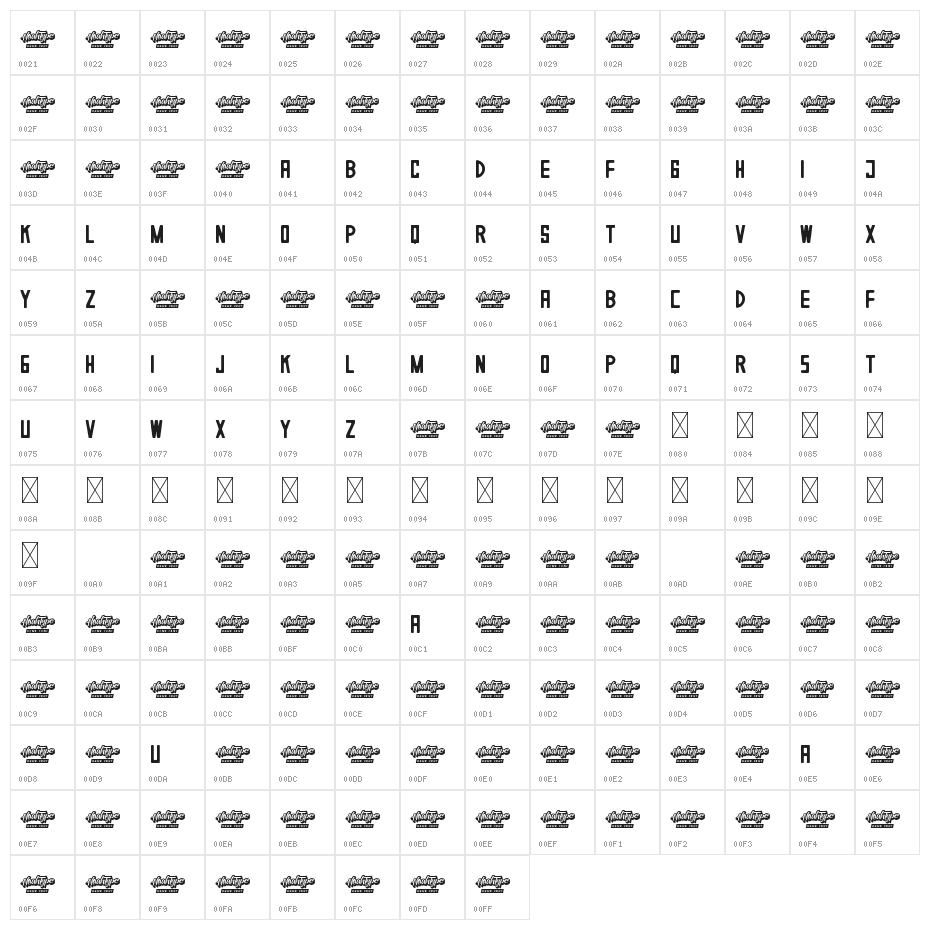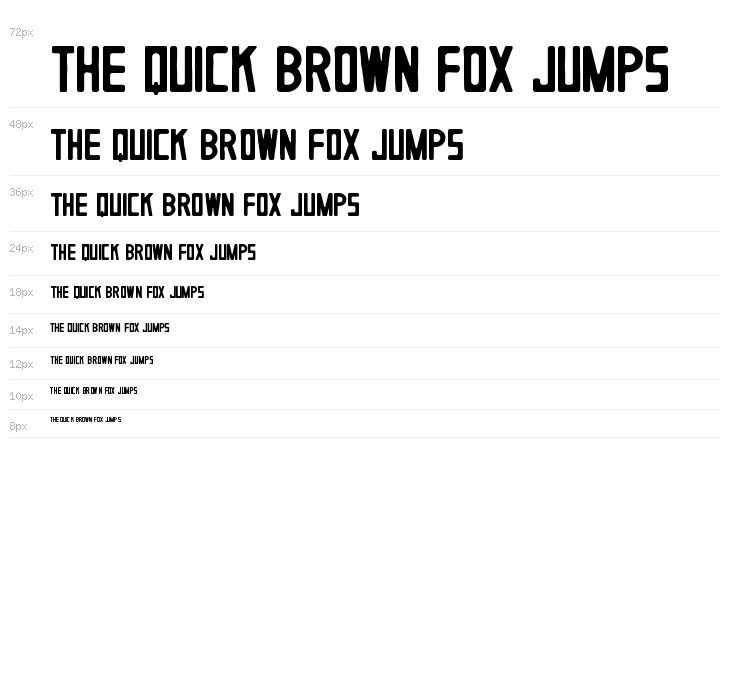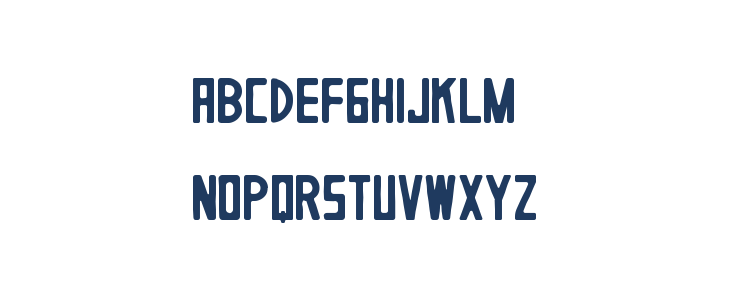
Inkstamp Demo Font
Inkstamp Demo Description
This font features a bold and impactful design with a distinctly vintage and industrial feel. The characters are uppercase only, with a blocky and slightly condensed structure that gives them a strong presence. The strokes are thick and uniform, providing a high contrast that enhances readability. The edges are slightly rounded, adding a touch of softness to the otherwise robust appearance. This style is reminiscent of old typewriter or stamp fonts, making it ideal for projects that require a retro or mechanical aesthetic.